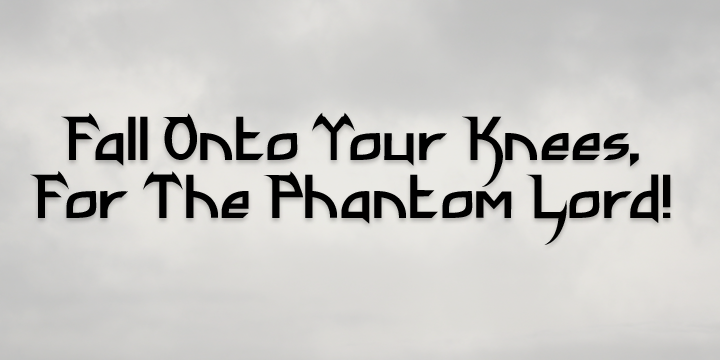
The Phantom Lord Font is perfect for gothic horror branding, dark fantasy game titles, supernatural movie logos, haunted attraction signage, occult-themed designs, mystery novel covers, Halloween promotional materials, and ethereal gothic campaigns. This haunting typeface works exceptionally well for projects that celebrate dark mysticism, supernatural power, and ghostly elegance.
What makes Phantom Lord Font exciting is its commanding supernatural character that captures the mysterious essence and otherworldly authority of phantom realms and dark lordship. The font features dramatic, ethereal letterforms with gothic influences and spectral elements that evoke supernatural power while maintaining excellent readability. Its ghostly majesty brings authenticity and mystique to any design project, making it perfect for brands exploring dark fantasy and supernatural themes.
The Phantom Lord Font family includes multiple variations: Regular, Bold, Light, Ornate, Shadow, and Extended character sets with special gothic ornaments, phantom motifs, crown symbols, and supernatural decorative elements. Each style maintains the font's distinctive spectral character while providing designers with flexibility to create compelling compositions that celebrate dark fantasy heritage.
Perfect for entertainment companies, gothic brands, and supernatural-themed businesses, Phantom Lord Font Free Download offers designers an authentic solution for dark mystical communication. The font's distinctive phantom character makes it suitable for both digital and print applications where supernatural authenticity and gothic elegance are paramount, ensuring memorable brand recognition while conveying otherworldly power and phantom majesty effectively.